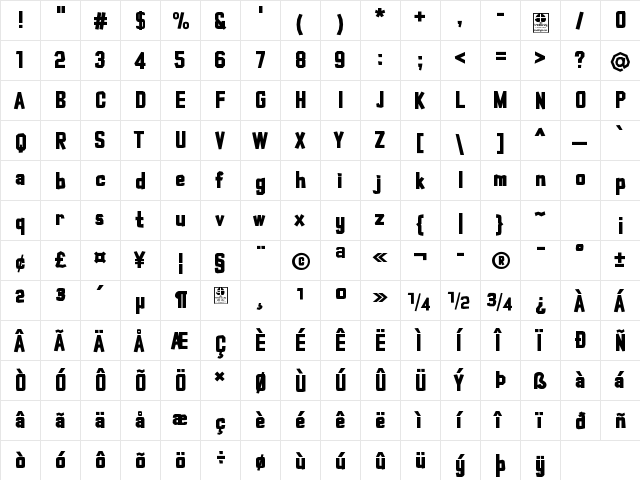
Typo Cut-Out Demo Bold
| Foundry | StudioTypo |
| Designer | Mehmet Abac |
Design Context for Typo Cut-Out Demo Typeface
Typo Cut-Out Demo takes a measured approach to typography — its balanced proportions and neutral character make it a reliable workhorse for both digital and print work. Its bold stroke weight gives it real presence on the page.